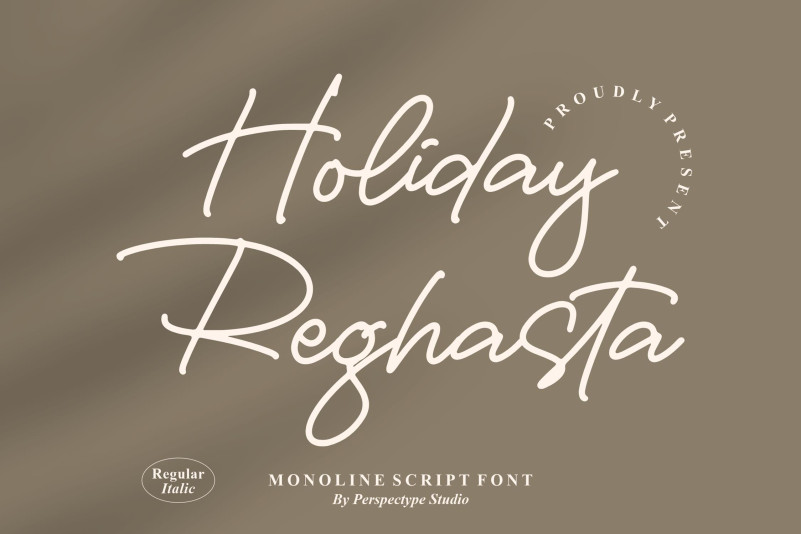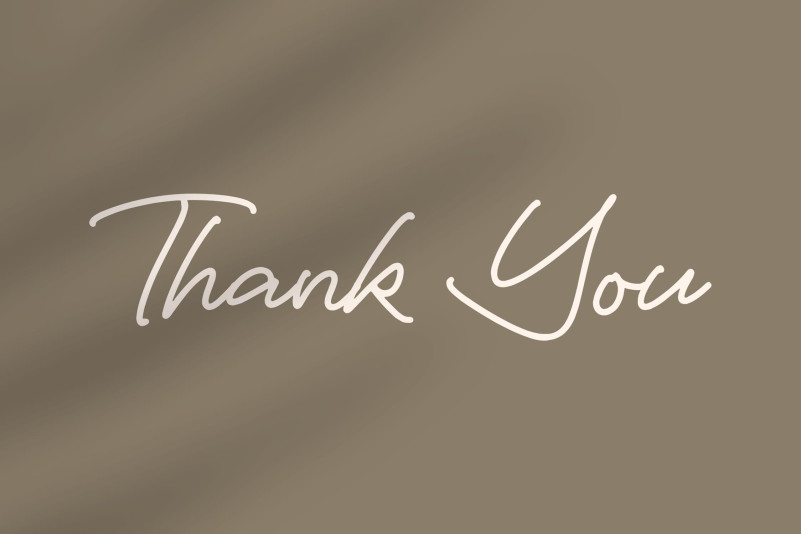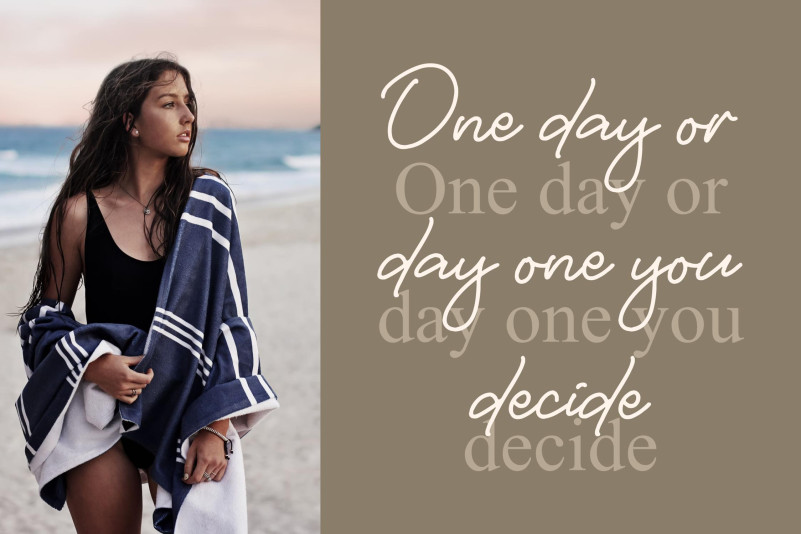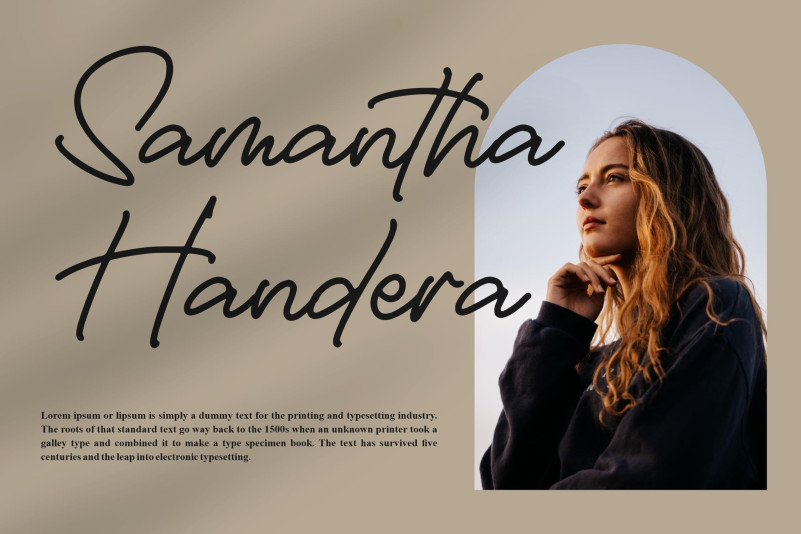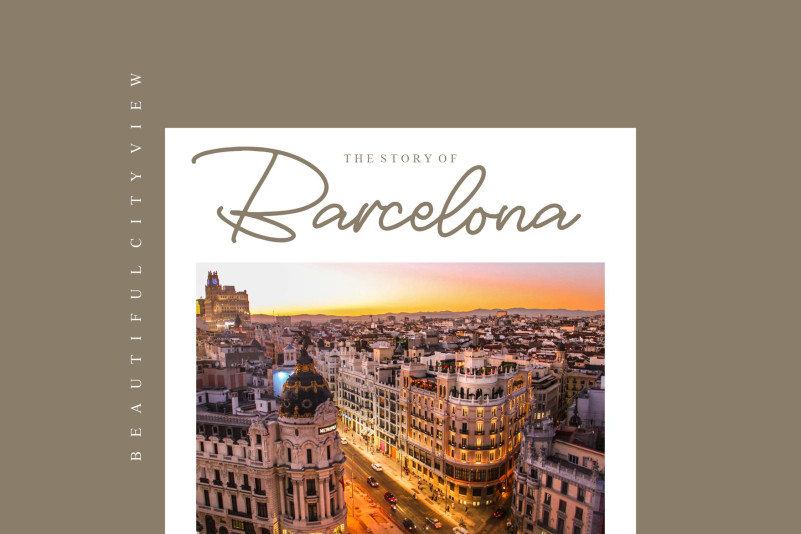
Holiday Reghasta Font
Holiday Reghasta Handwritten Font is a Monoline Script Font, suitable for any projects such as: logos, branding projects, homeware designs, product packaging, mugs, quotes, posters, shopping bags, t-shirts, book covers, name card, invitation cards, greeting cards, label, photography, watermark, special events, and all your other lovely projects that need a beautiful script taste.